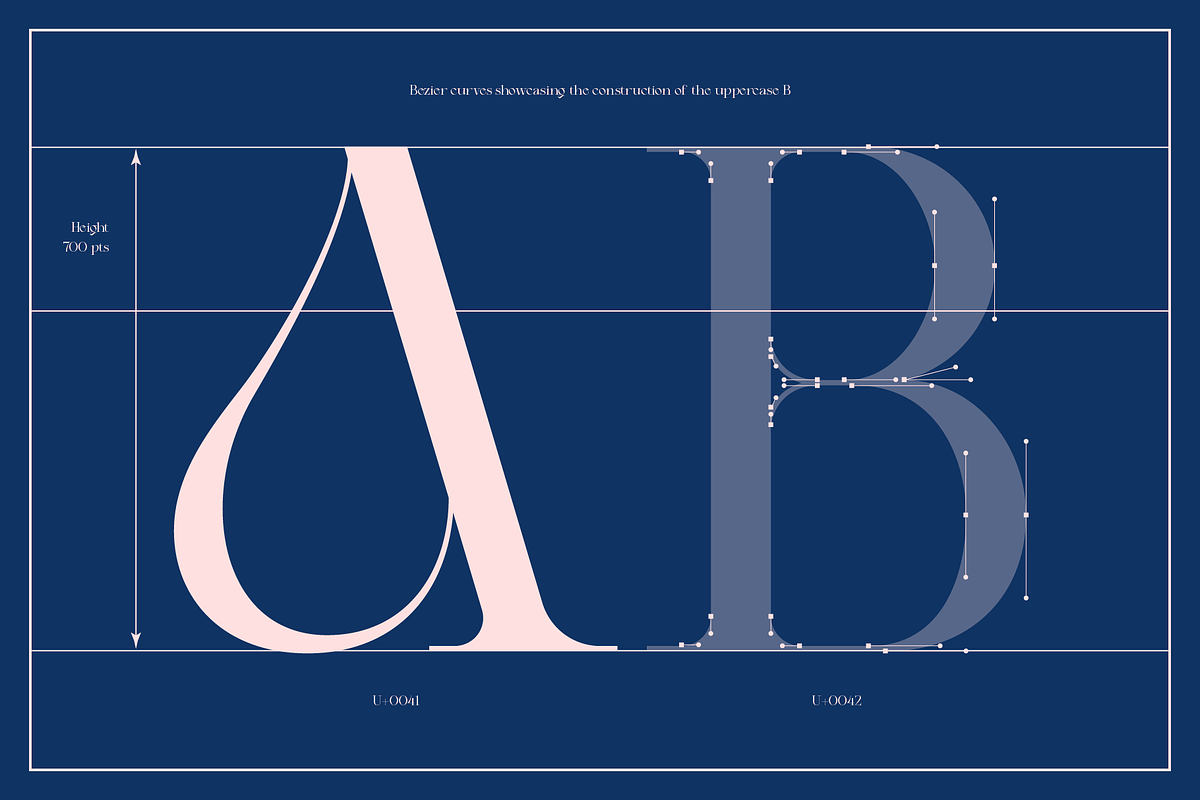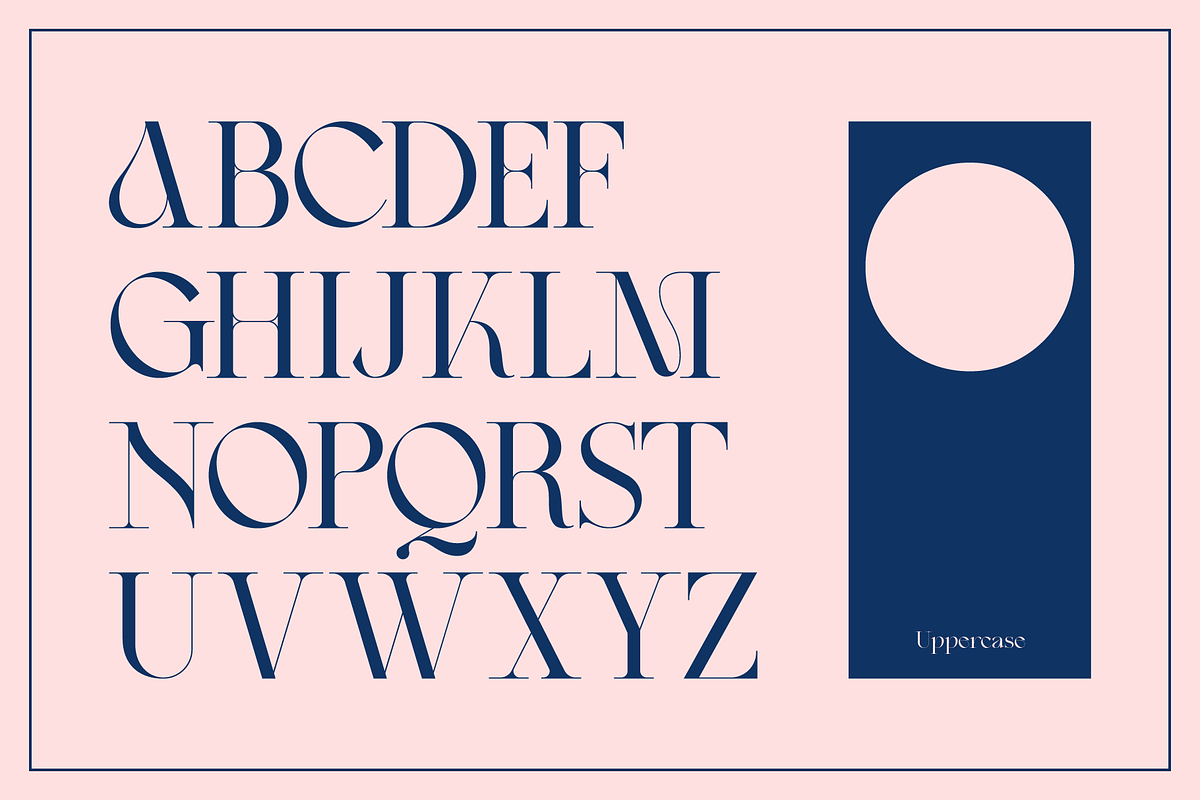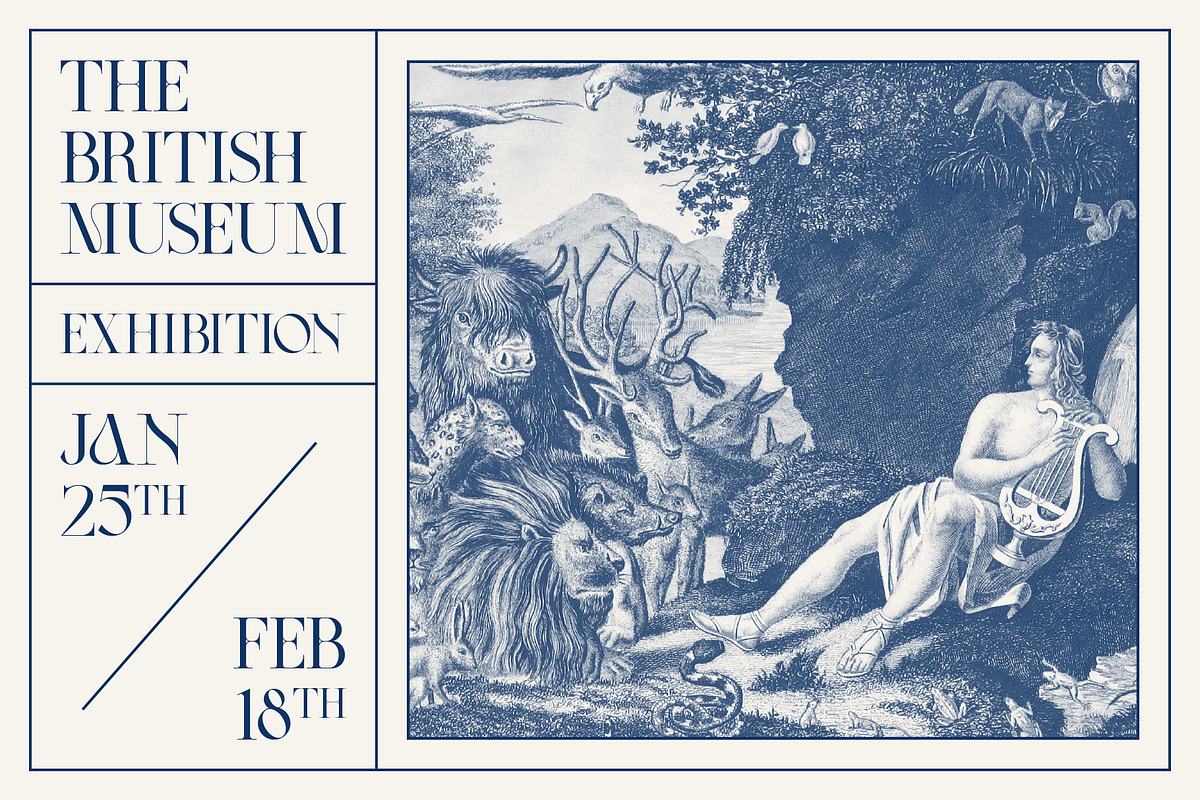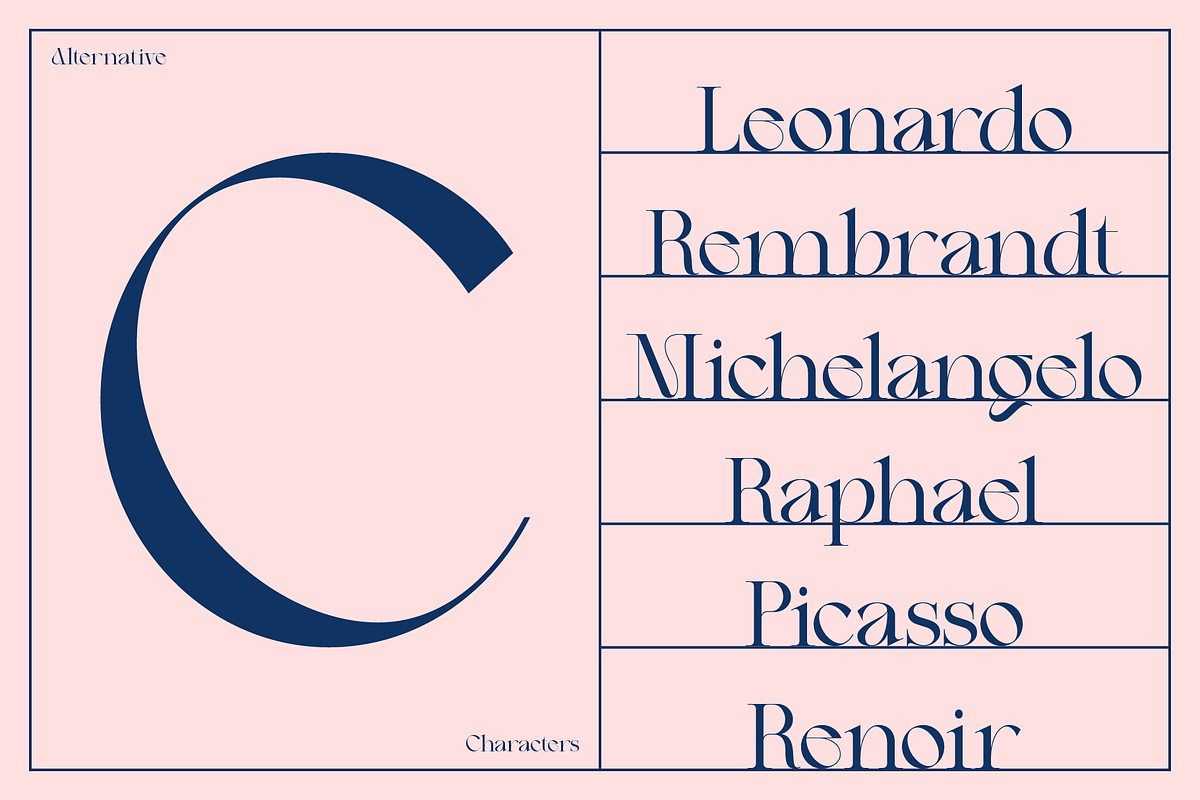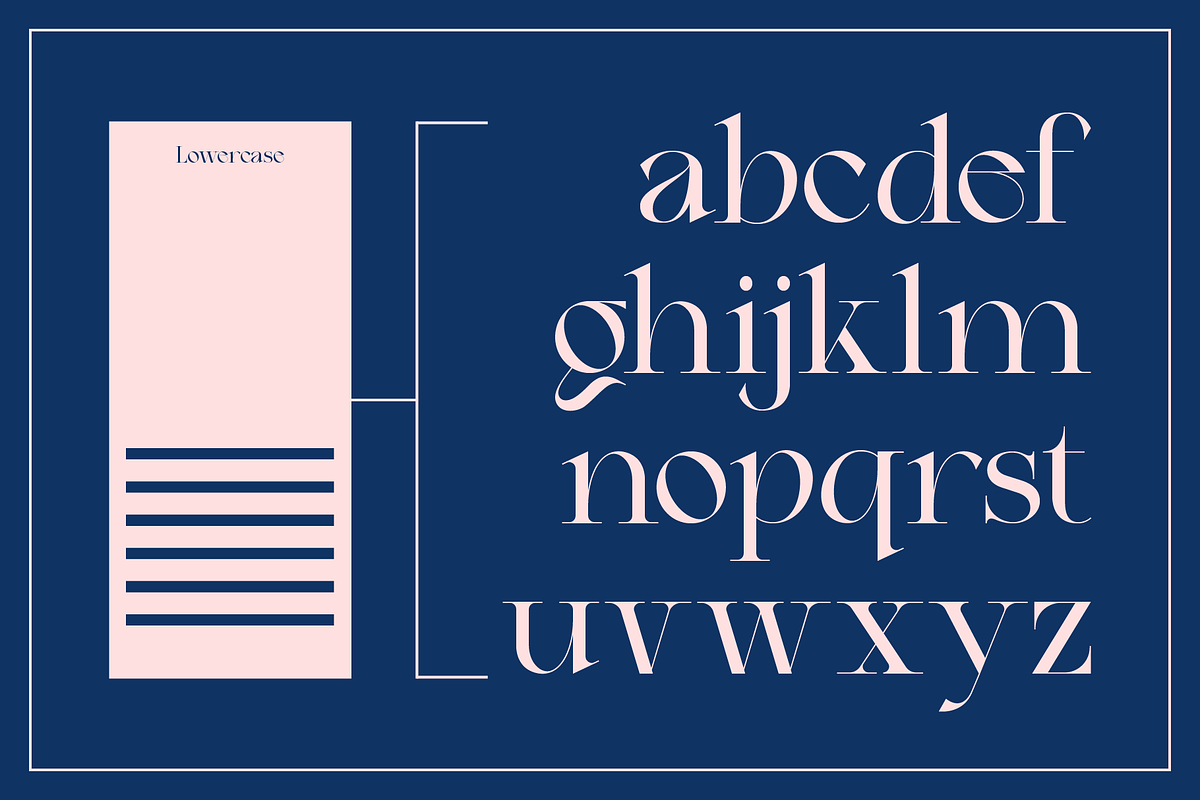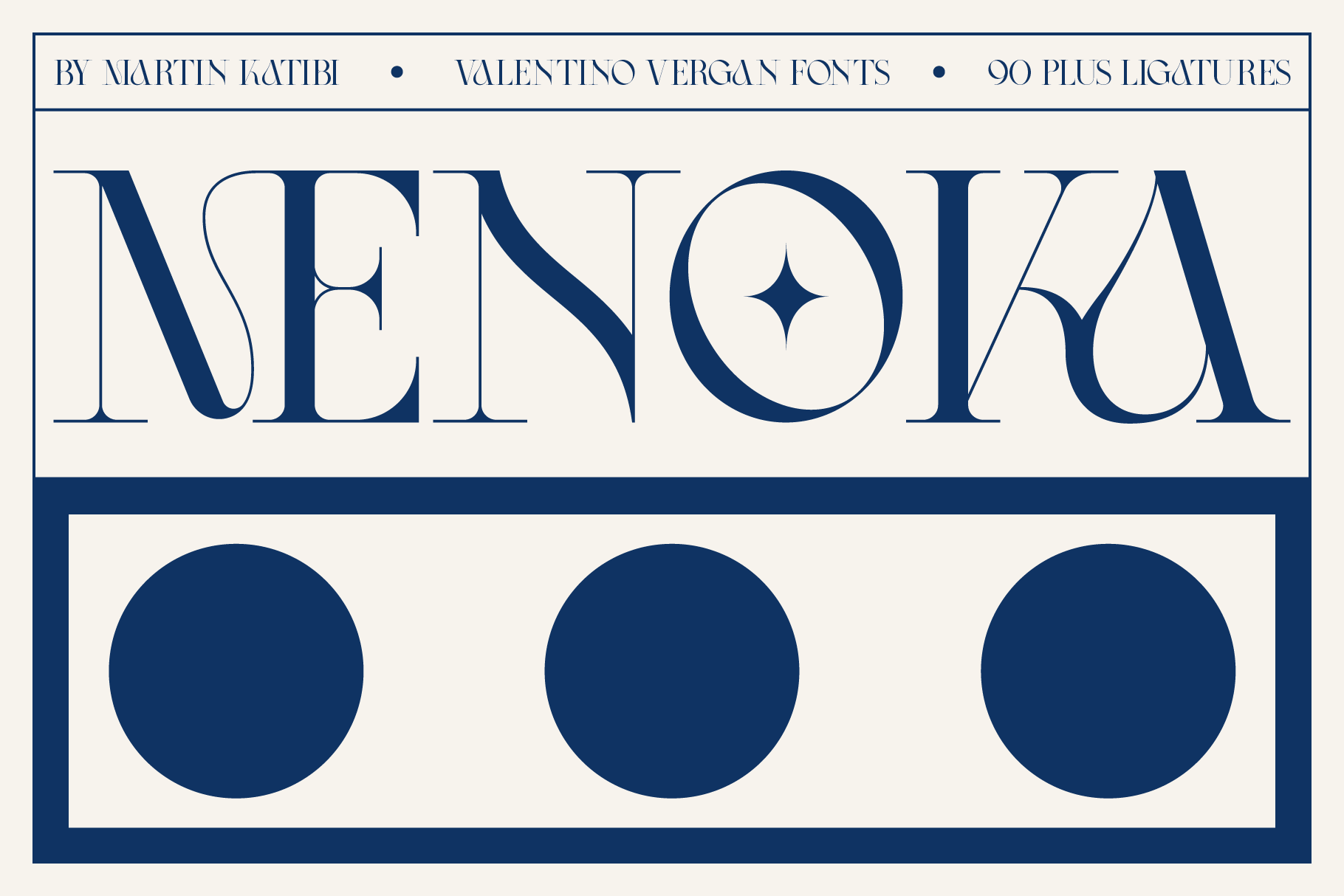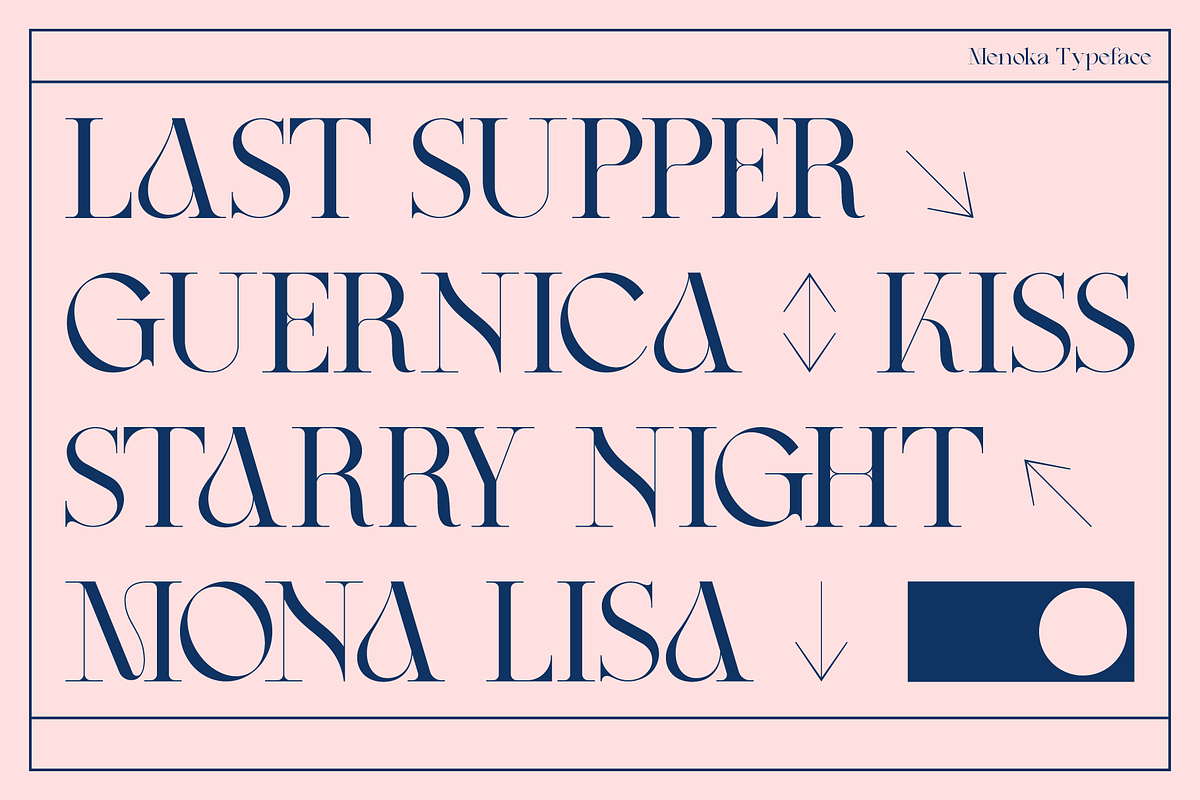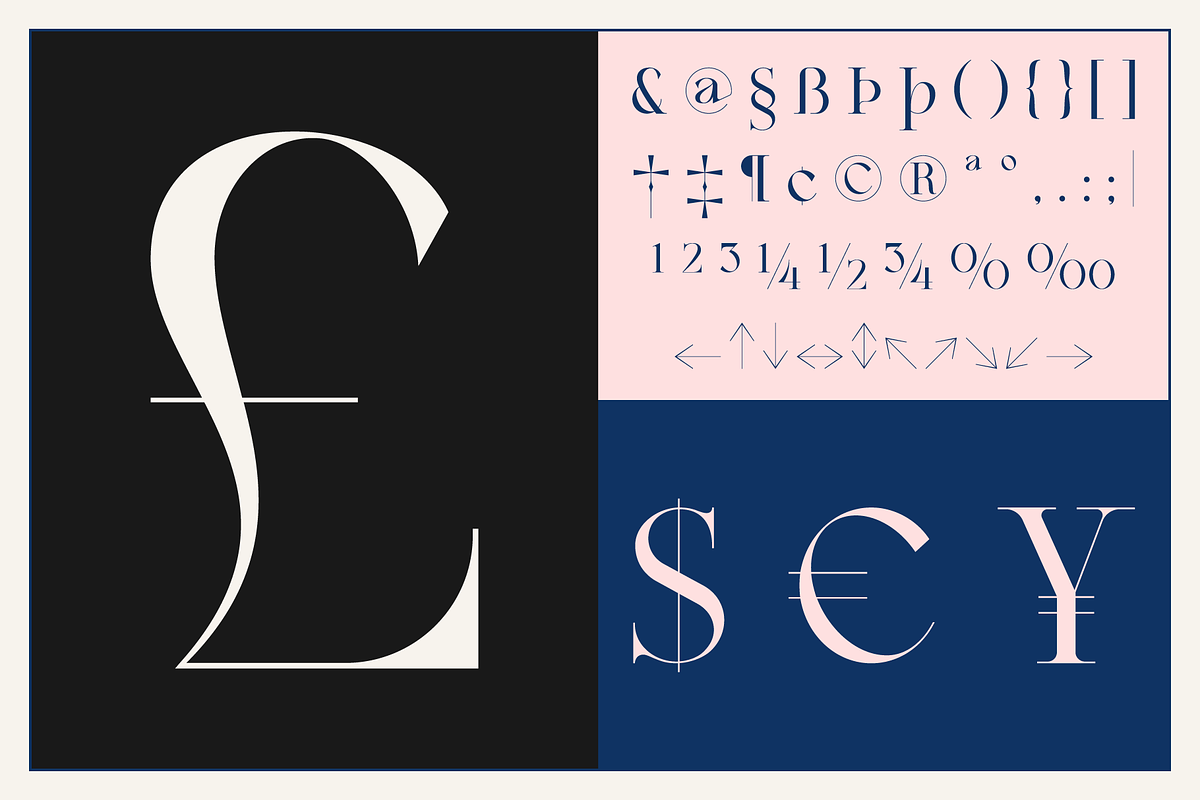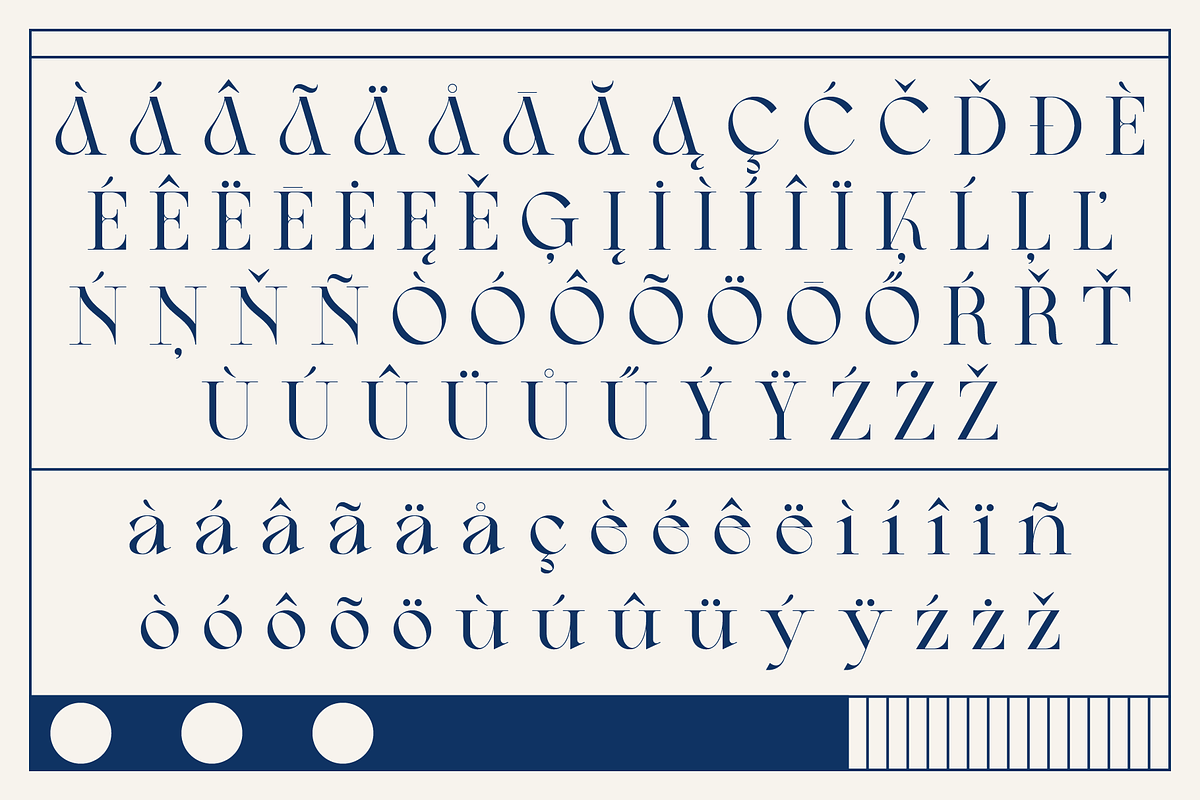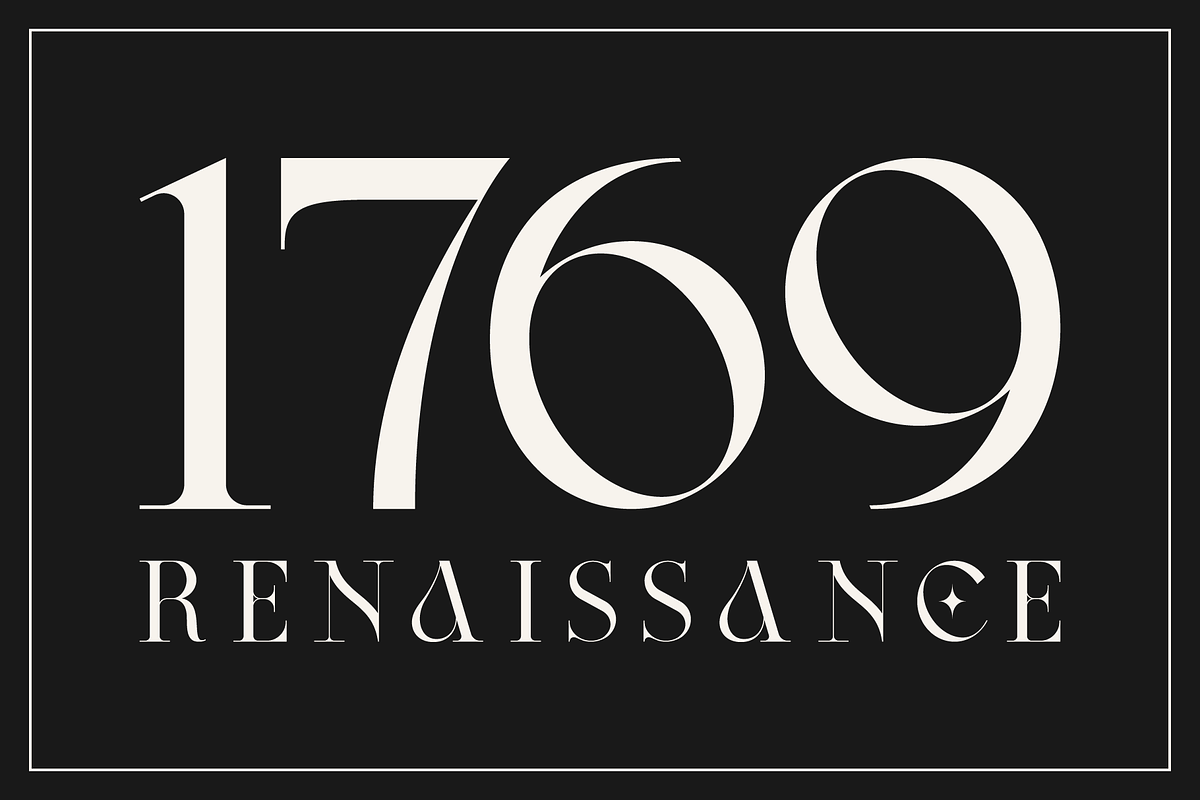
Menoka - Elegant Typeface
Menoka is an elegant and modern serif typeface inspired by the late renaissance period. Menoka was designed with a very thin hairline and long serifs, this reflects the elegance and sophistication that was evident during the 17th century.
With over 90 stylistic ligatures, Menoka is great for headlines and short to medium texts. Menoka is compatible with 93 languages and contains 433 glyphs, including several alternatives.